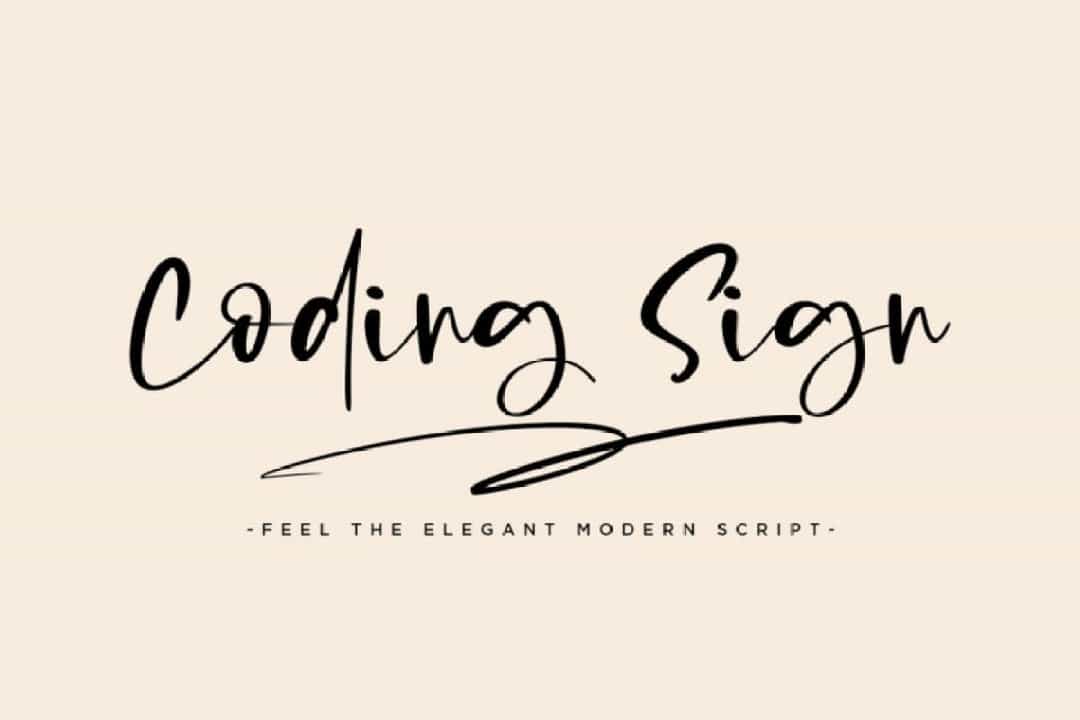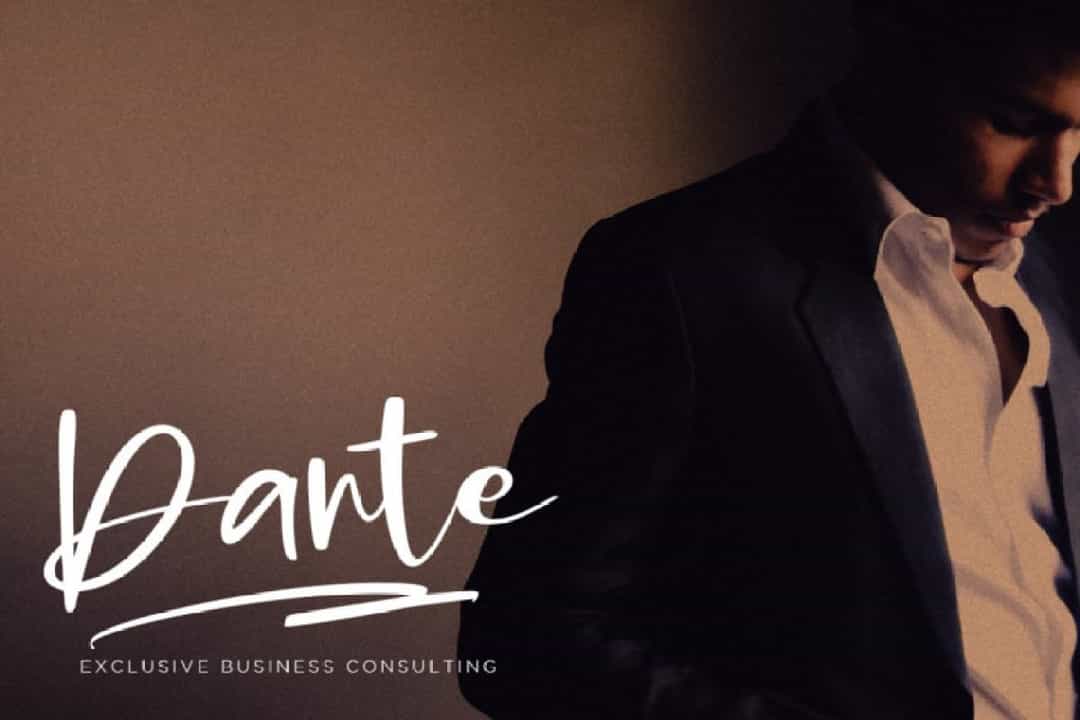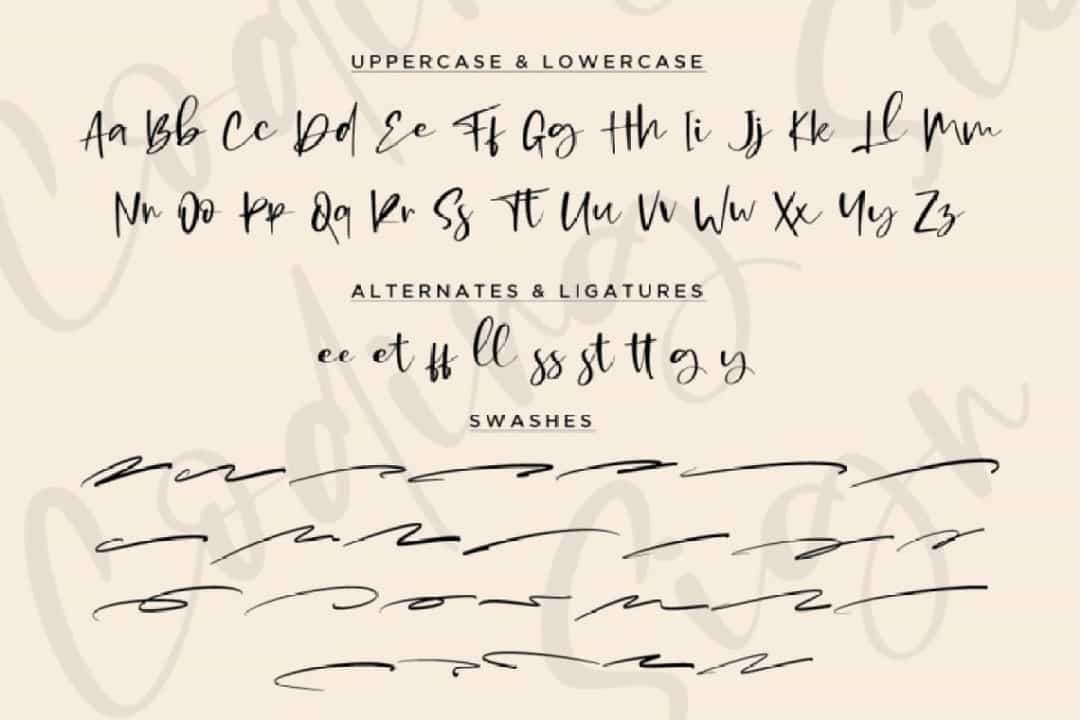
Discover Coding Sign Handwritten Bounce Script Font, part of the Handwritten Script collection—a versatile and unique font perfect for adding a personal touch to your projects. Download it for free and enjoy crafting designs with style, from invitations to social media posts. This font is available exclusively for personal use, giving you the freedom to create without limits. Unlock your creativity with Coding Sign Handwritten Bounce Script Font today!
Coding Sign is a beautiful connectable font with a bouncy look that has natural texture to it and resembles handwritten font to a certain degree as it was created from the writing my hand. I do wish it impresses you when you use this font! When applying this font in Photoshop I have used layer masks and this makes it look like real writing.